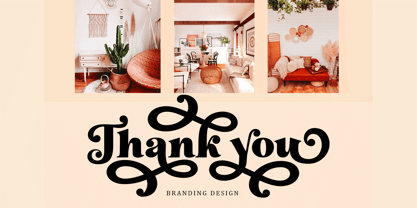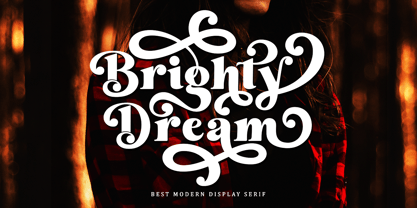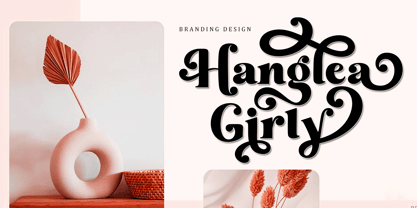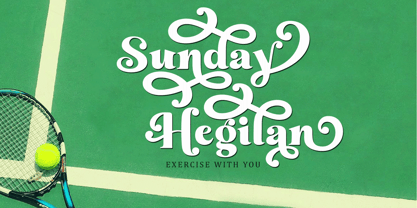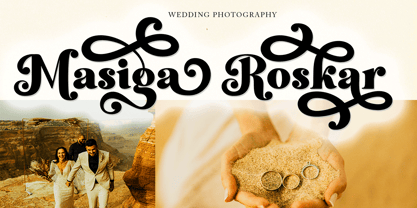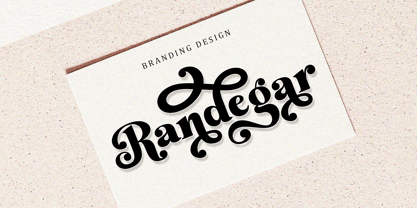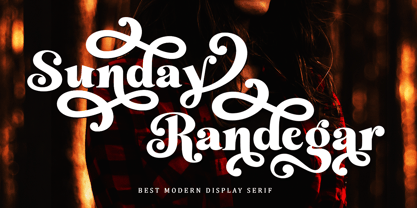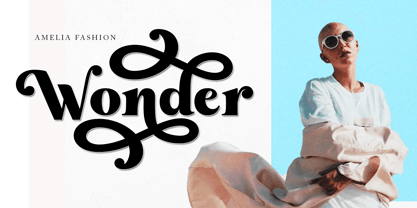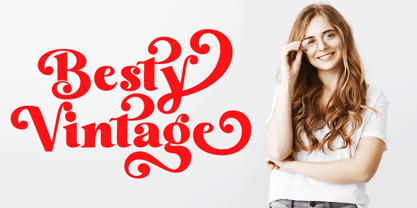
Sunday Randegar
by Gold Type
The Sunday Randegar Font Family was designed by Wahi Din and published by Gold Type. Sunday Randegar contains 1 styles.
Sunday Randegar is a beautiful and versatile serif font. This font is characterized by a serif style with a luxurious style in a modern form, but also a friendly and cheerful style in bold, Sunday Randegar has glyphs to give crafters more choices in designing. This modern style will make a design appear more classy, elegant, unique and edgy.
Sunday Randegar is a font suitable for many projects, for modern or even retro vintage designs, branding, logos, crafts, stickers, sublimation, wedding invitations and much more. This font is suitable for various projects such as logos, branding, magazines, signage, fashion, and many more.